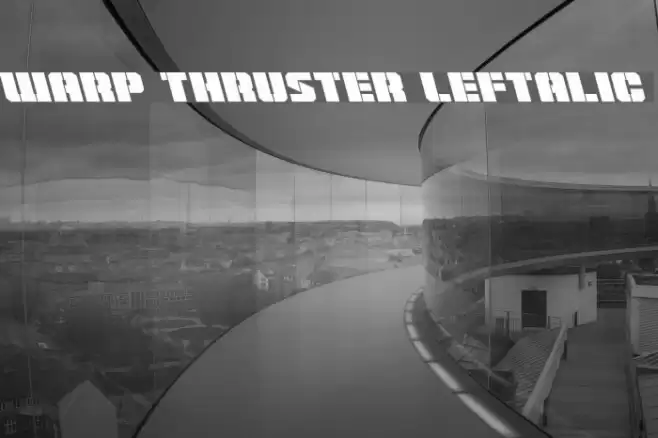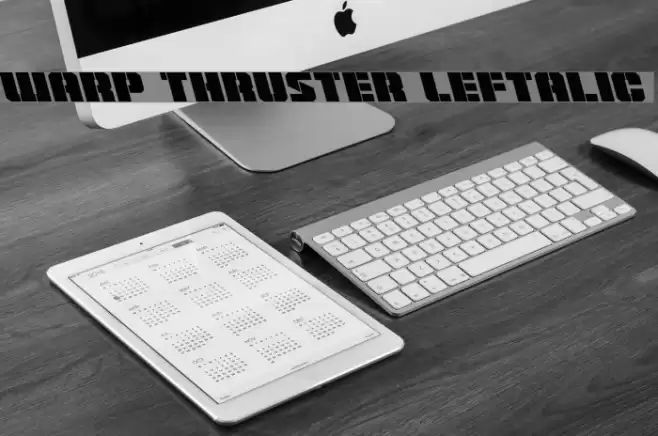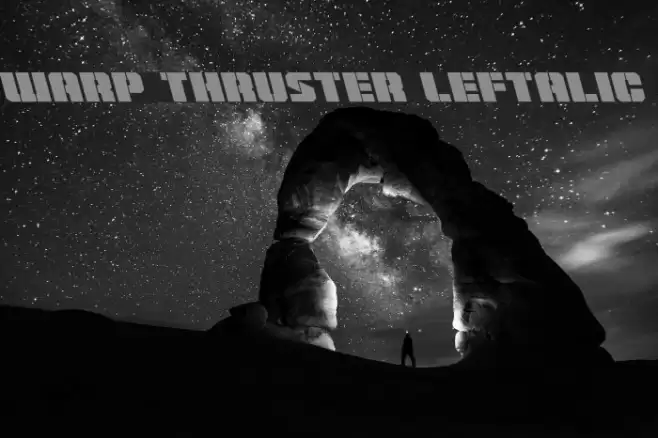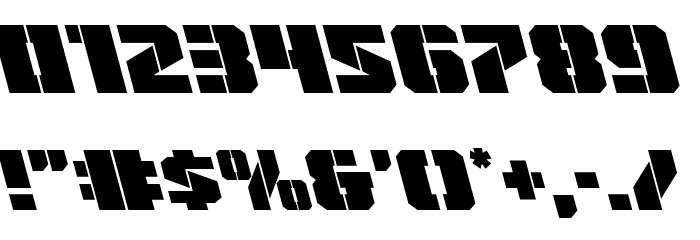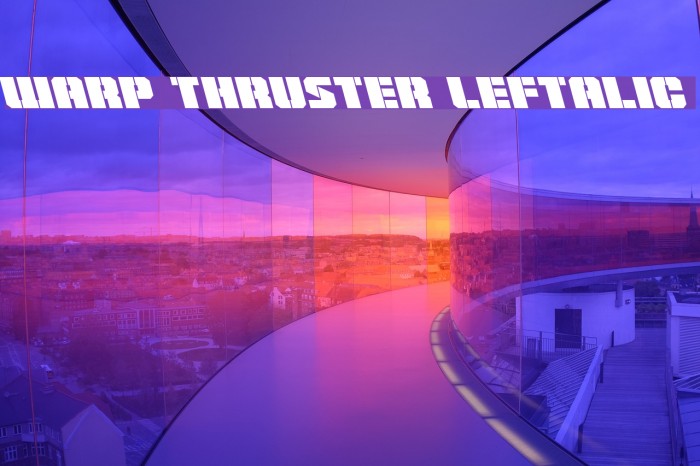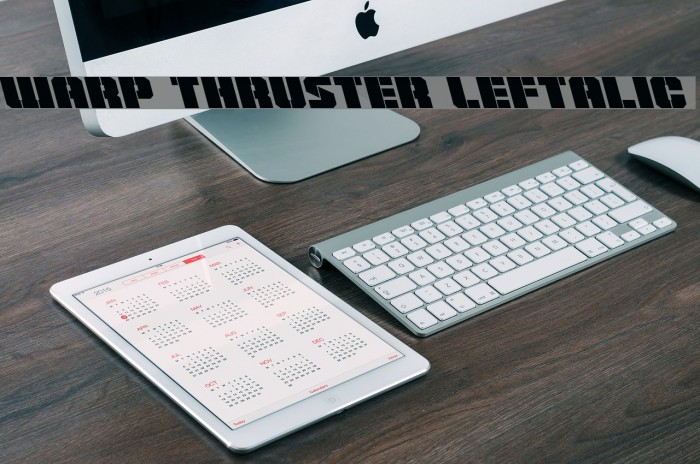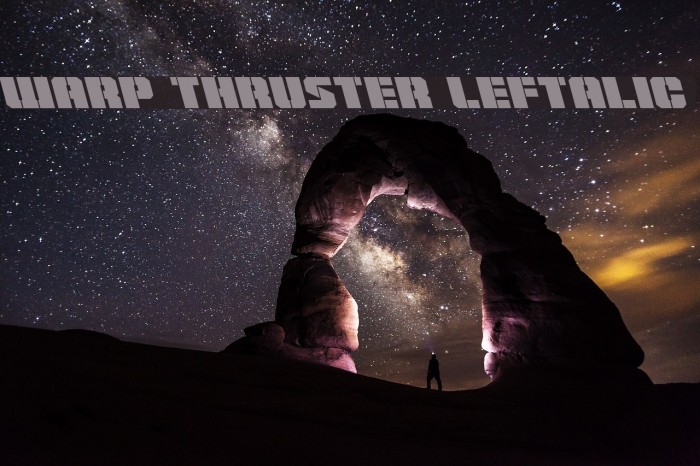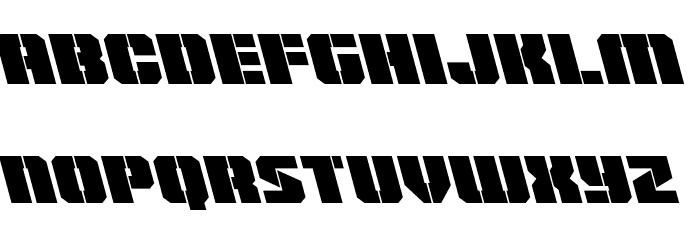
Warp Thruster Leftalic Font
Warp Thruster Leftalic Description
This font features a bold, futuristic design with a strong geometric influence. Each character is constructed with sharp angles and a blocky appearance, giving it a dynamic and robust look. The letters are slightly italicized, adding a sense of motion and speed. The font's thick strokes and angular cuts create a high-impact visual, making it ideal for attention-grabbing designs. The consistent width and spacing between characters ensure readability while maintaining its unique style. This font is well-suited for projects that require a modern, tech-inspired aesthetic.
A bold, geometric font with a futuristic, italicized style from Uncategorized fonts.
- Proposed Projects: Ideal for sci-fi themed posters, video game titles, tech branding, and futuristic event flyers.
- Overall Style: Futuristic, Modern